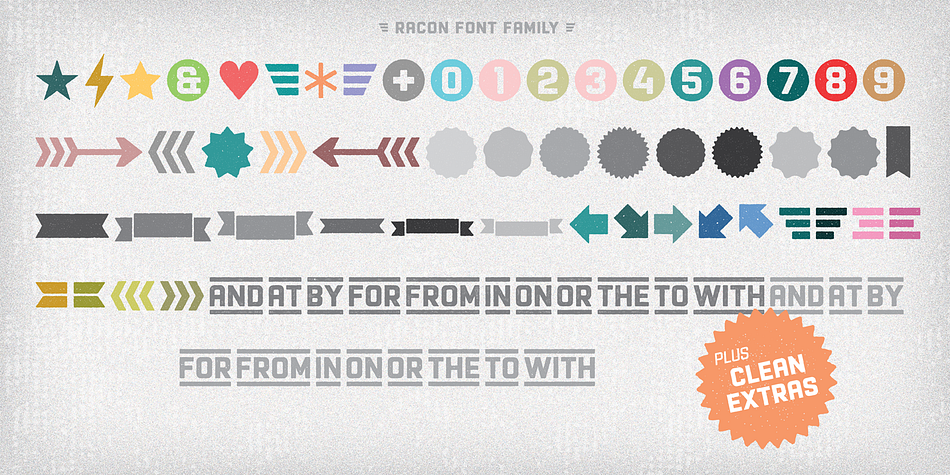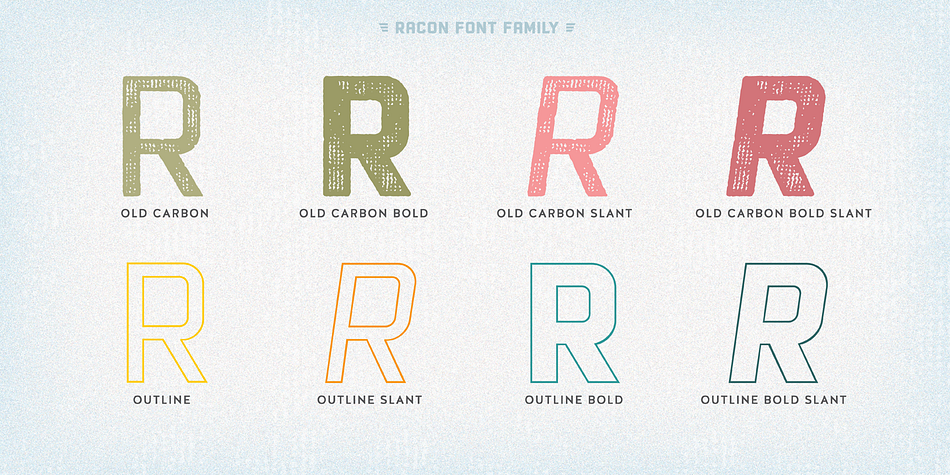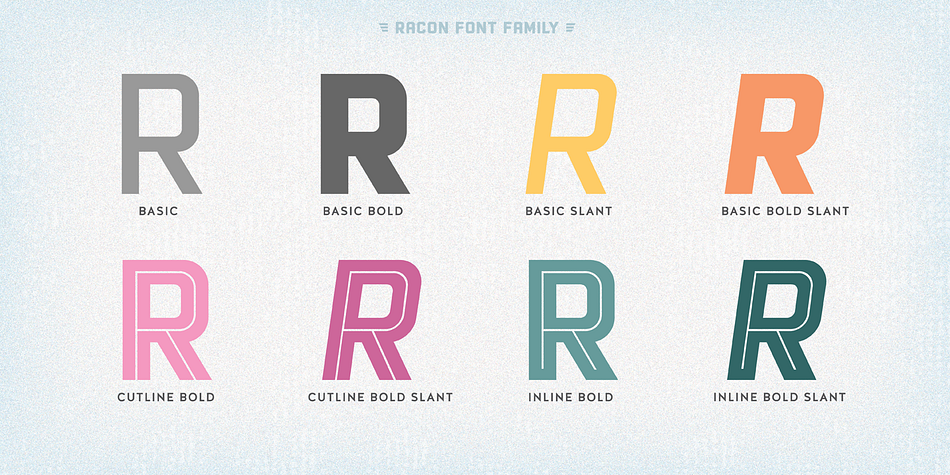
Designed by Ahmet Altun, Racon is a dingbat, grunge and display sans font family. This typeface has twenty-six styles and was published by Ahmet Altun.
Racon Font Family comes in two weights as regular and bold with seven styles. You can create unique and great designs with its classy, legible, elegant look and most preferred texture and clean styles. You can enrich your designs by using Racon Fonts with its clean and old styled extra figures.
It would be a perfect choice for designing posters, affiches, logos, invitation cards, t-shirt and magazine prints, eye-pleasing typographic designs and more.